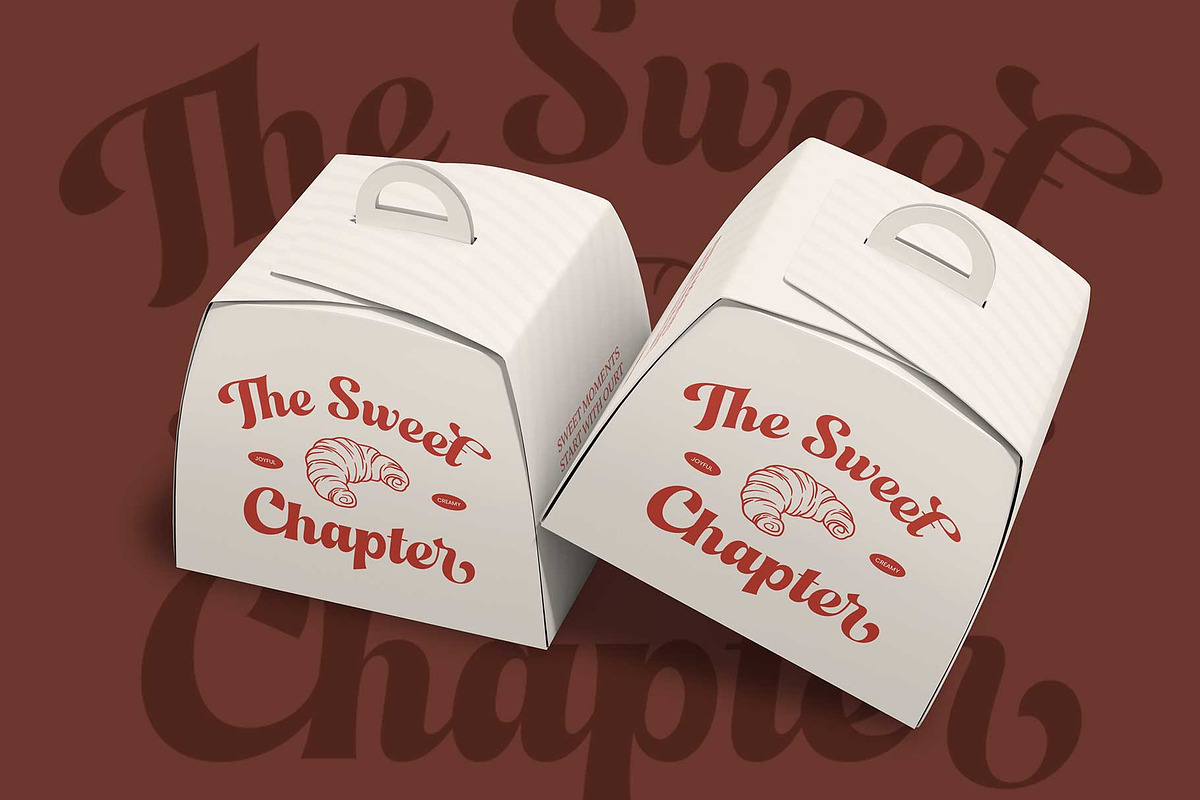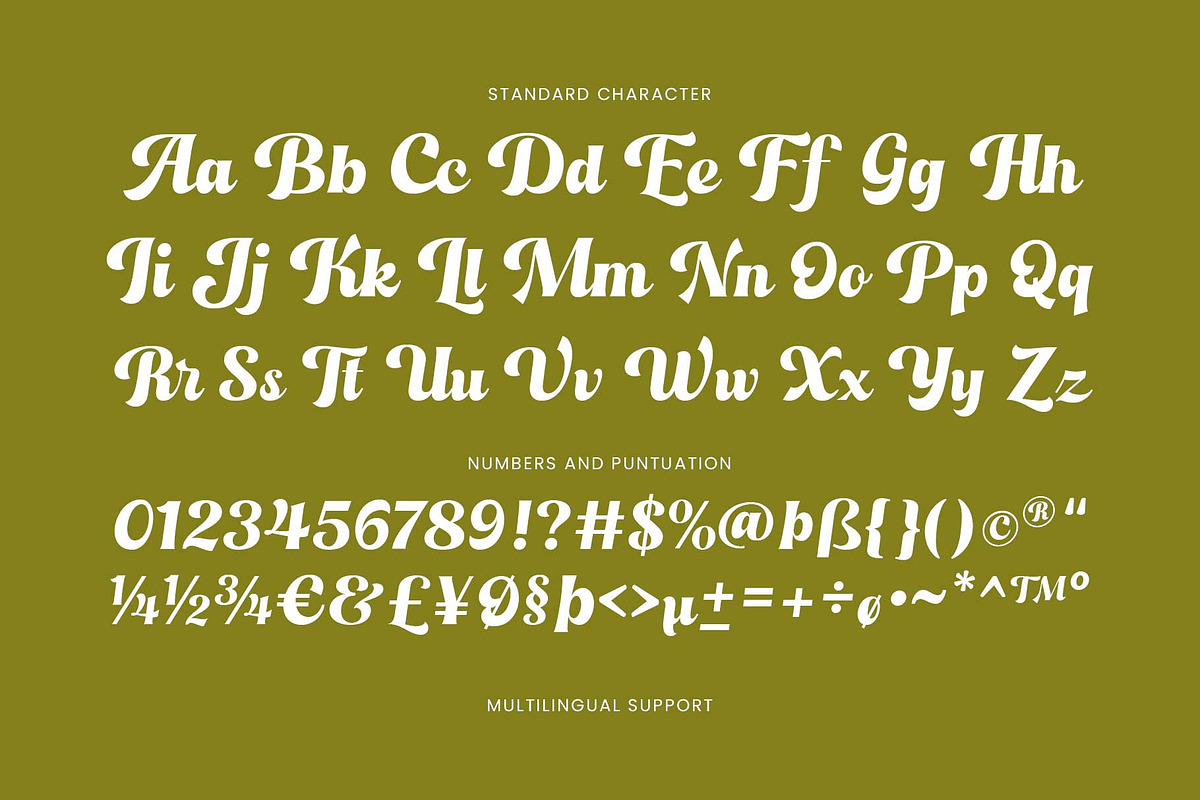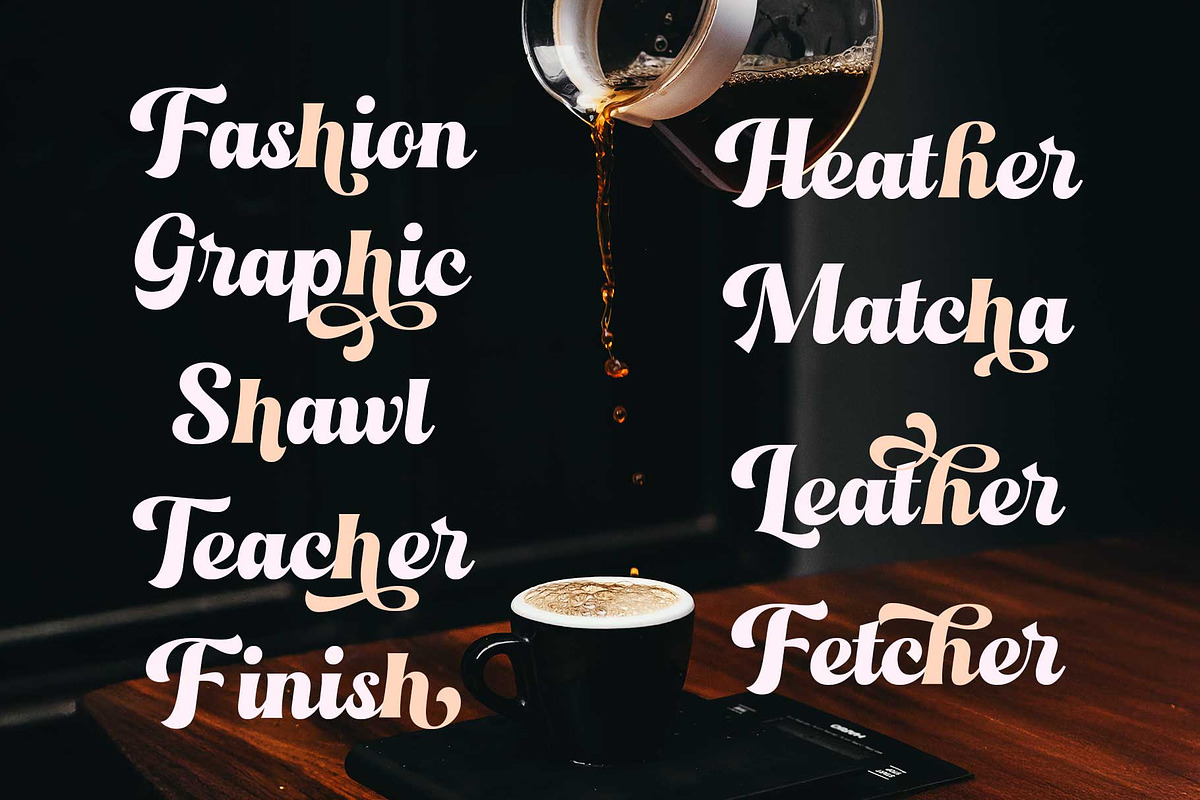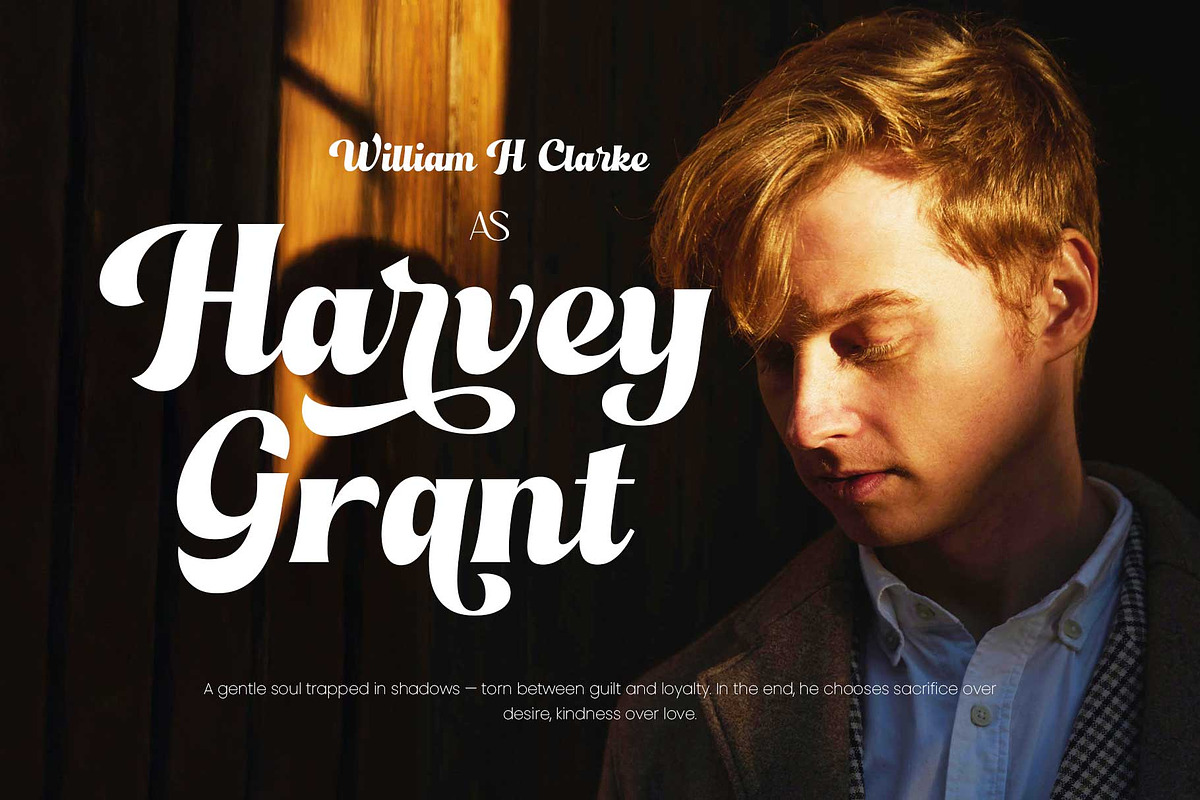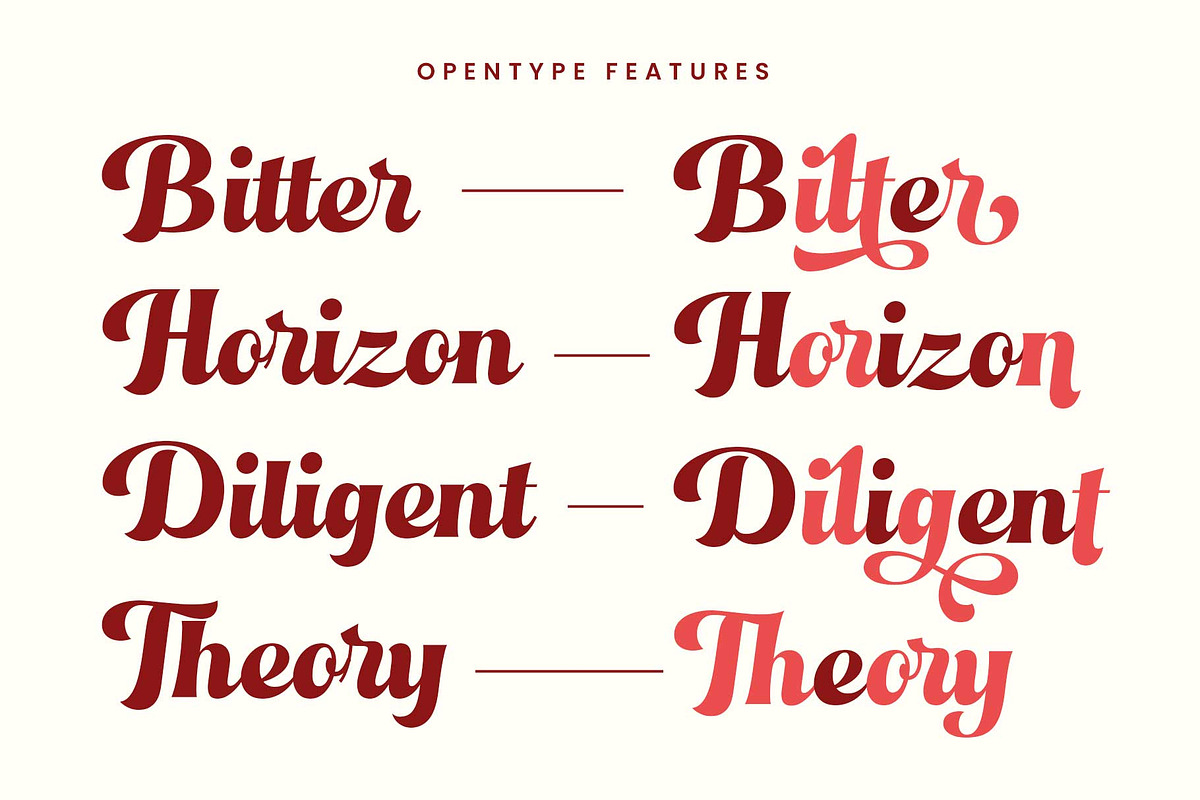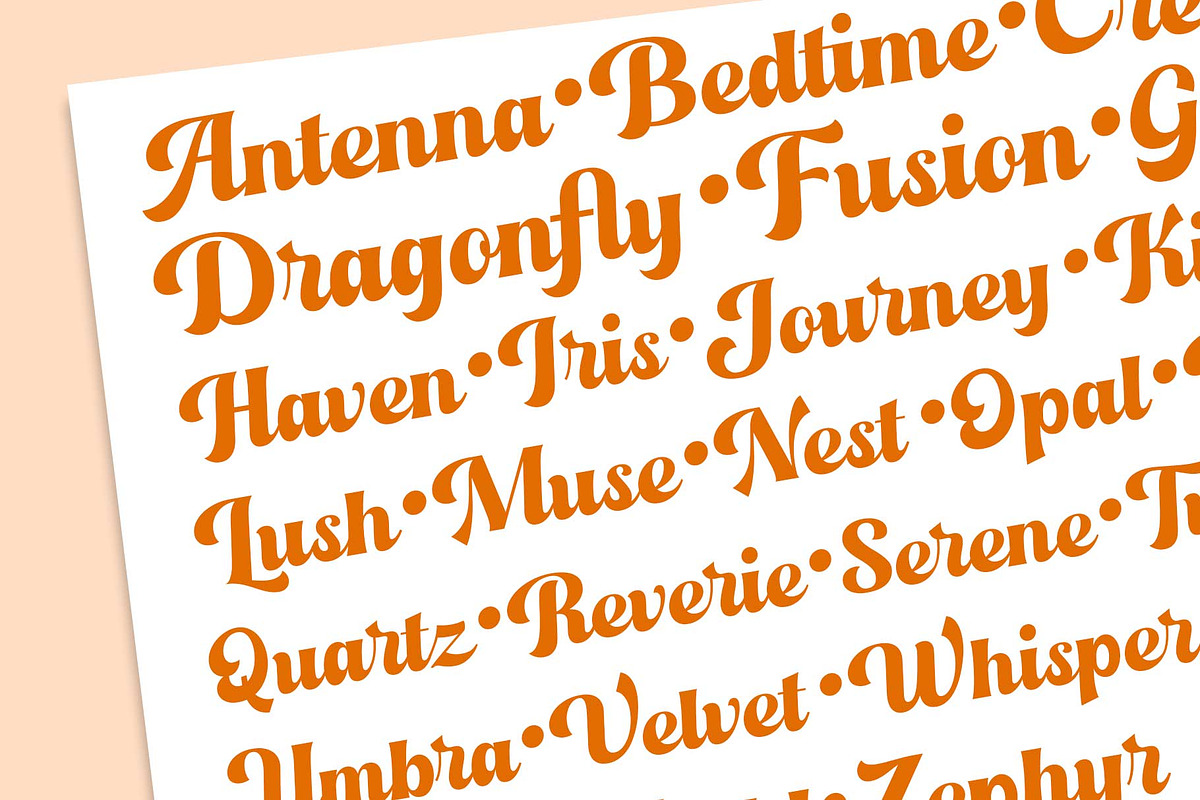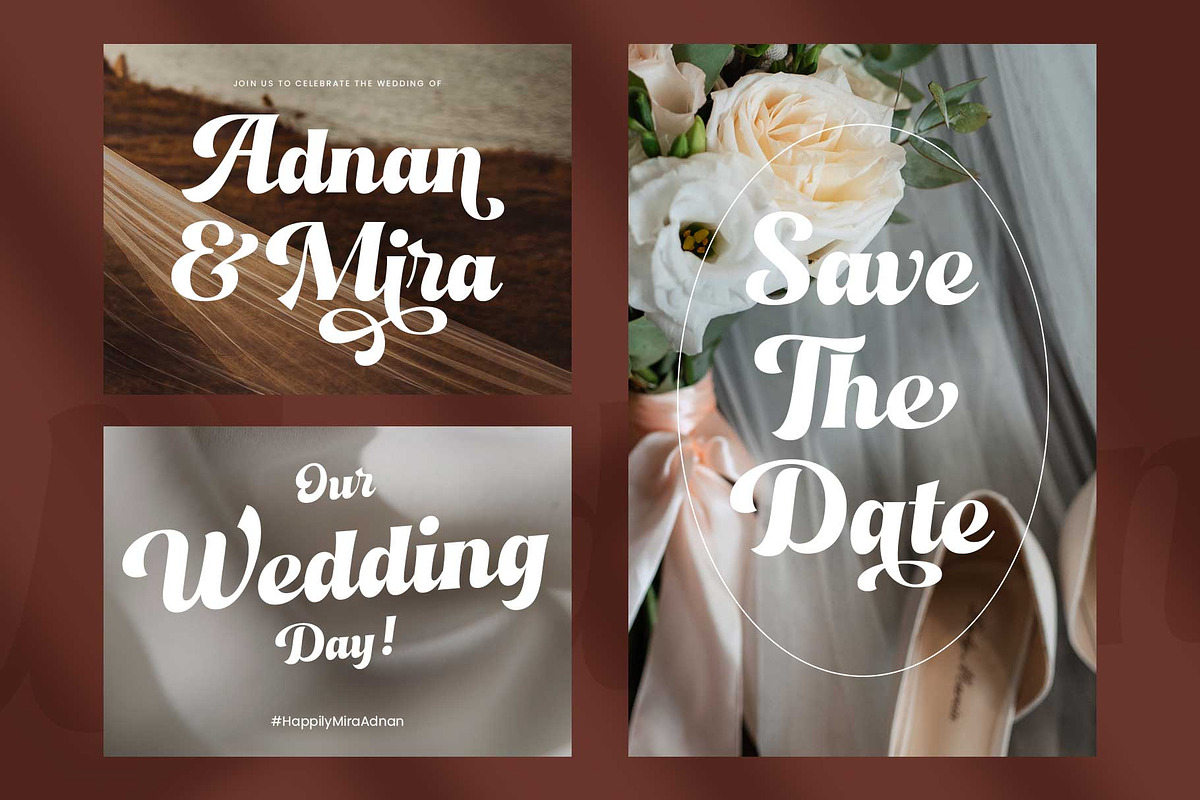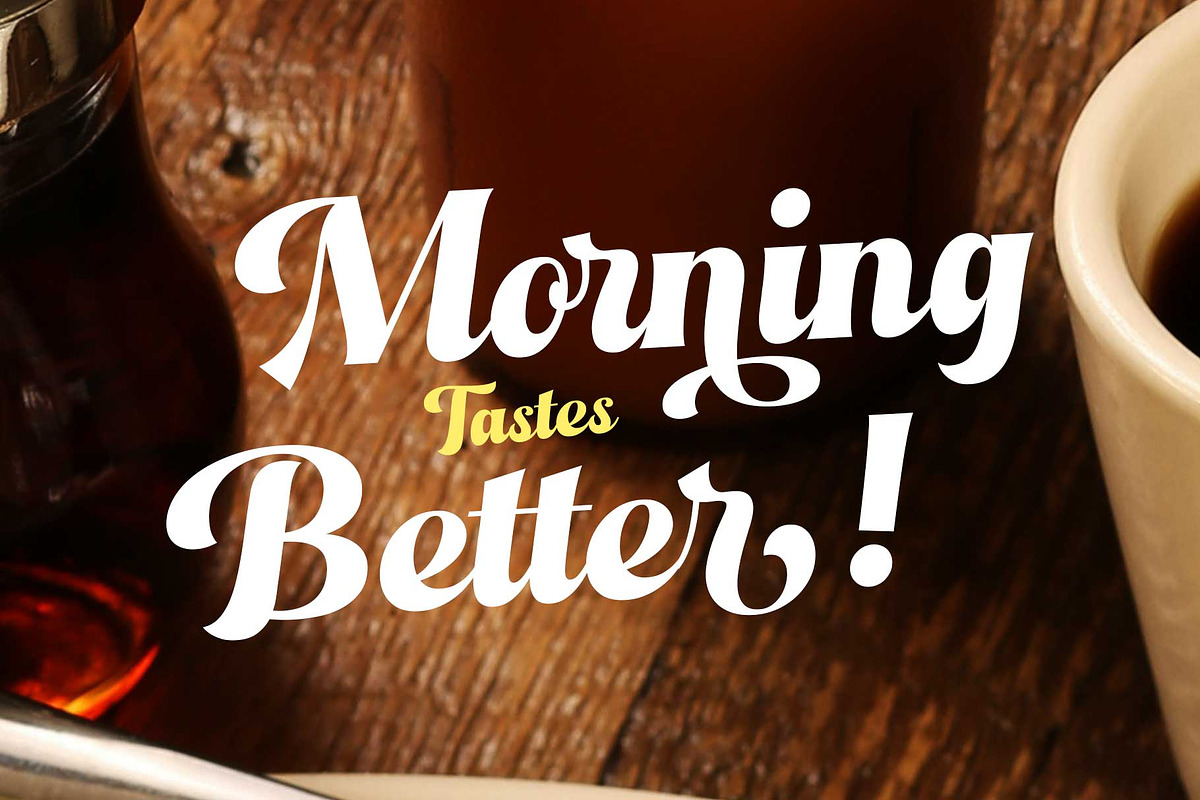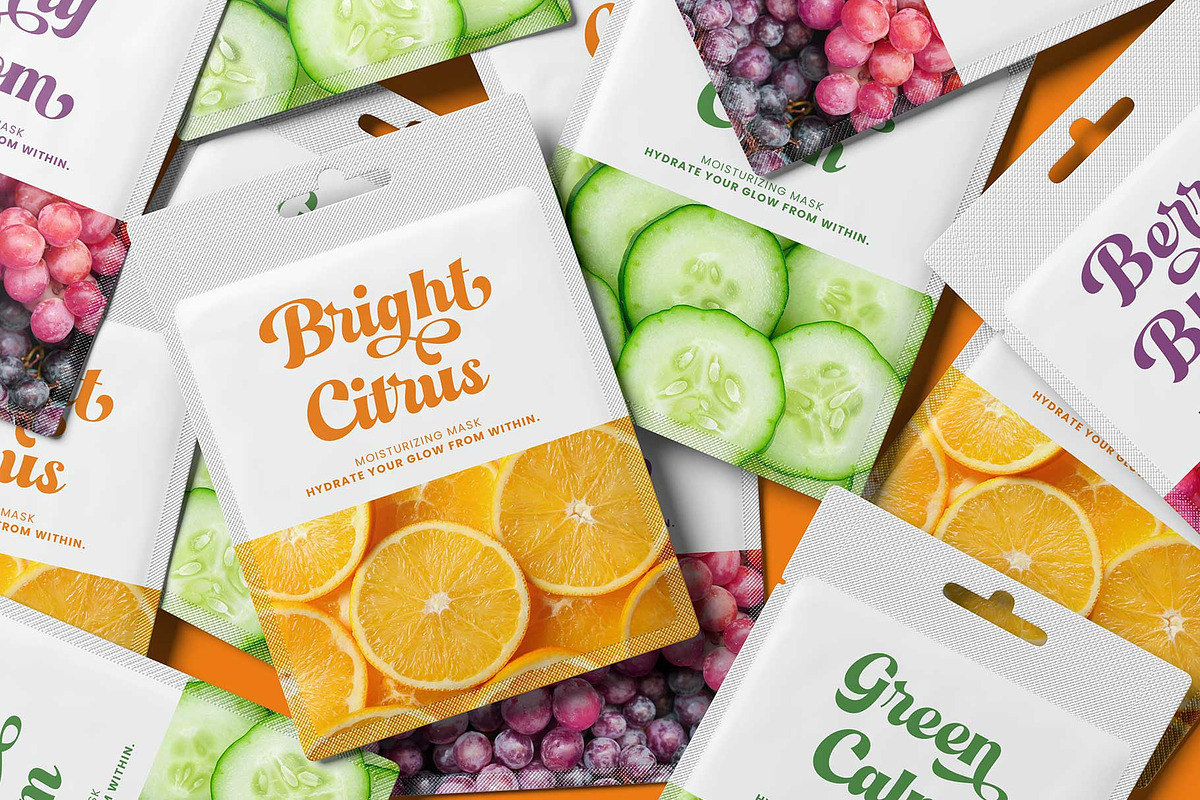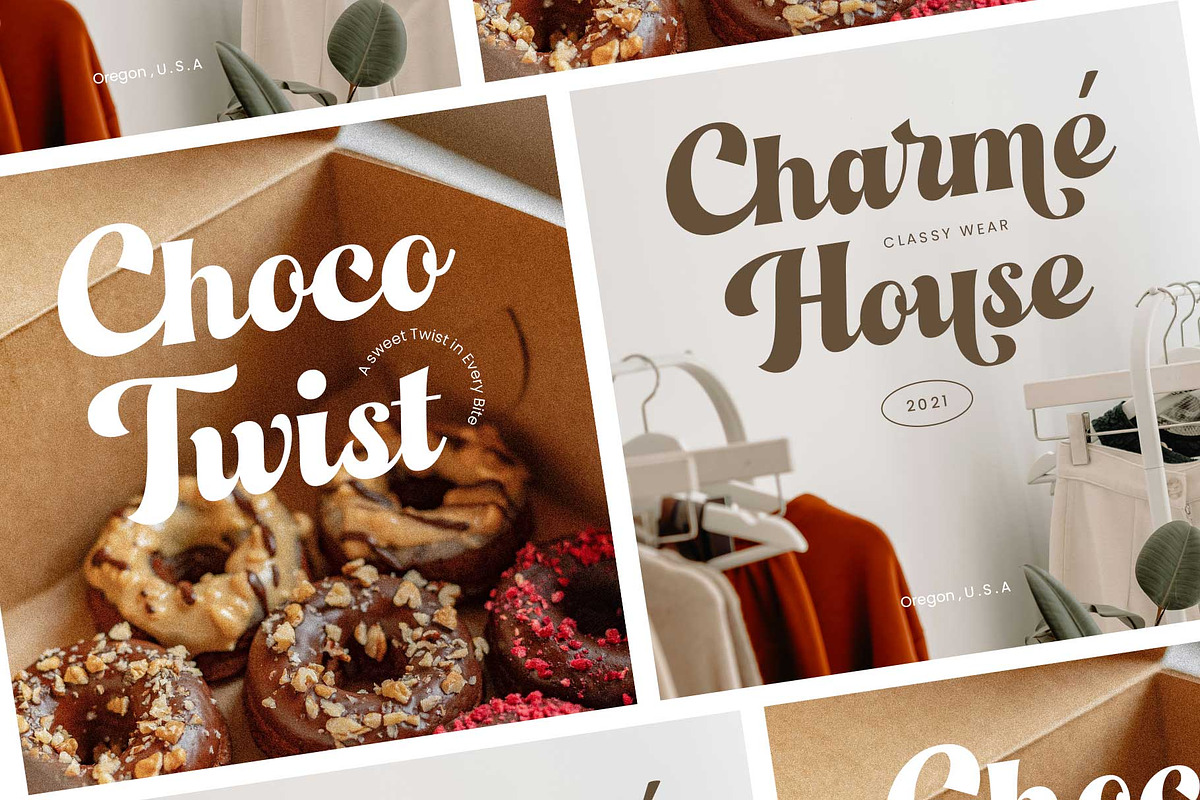
Bold Vintage Script - Hendika
Hendika is a vintage script typeface designed with a bold weight and a playful yet elegant vibe. With its thick, flowing strokes, this font takes you back to the retro era and adds a touch of beauty to your designs.
Hendika comes with stylistic alternates and ligatures, allowing you to create decorative designs with ease and fun! It’s perfect for logos, branding, posters, labels, storefronts, motion graphics, and more.
- Stylistic alternates